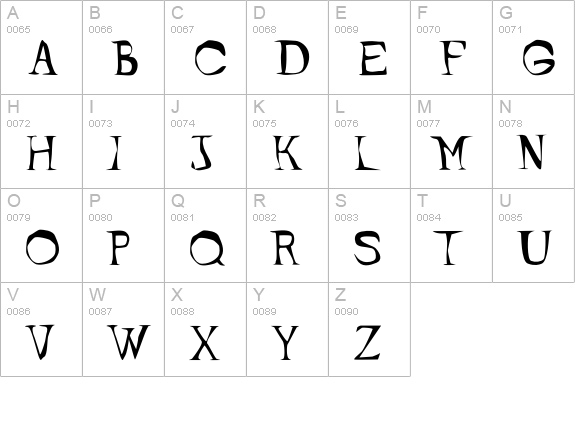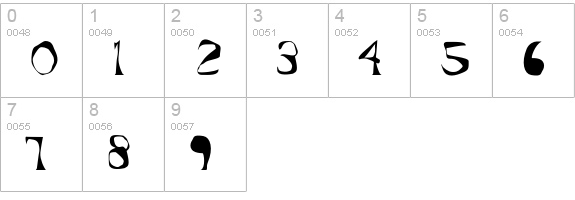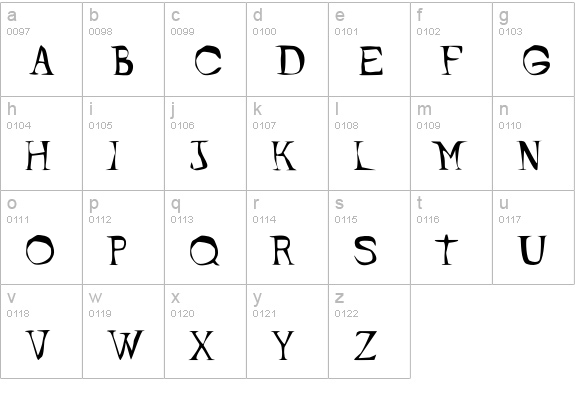
FreeBeCaps Font Details
Introducing FreeBeCaps, a versatile and modern display font that is sure to make a statement in any design project. This unique typeface features bold, uppercase lettering with clean lines and a stylish aesthetic. Perfect for headlines, logos, posters, and more, FreeBeCaps adds a touch of sophistication and flair to your designs. The best part? FreeBeCaps is completely free to download at FontsMarket.com! Take advantage of this amazing offer and elevate your design projects with this eye-catching font. Whether you're a professional designer or just getting started, FreeBeCaps is a must-have addition to your font collection. Download it today and unleash your creativity with this stunning typeface.